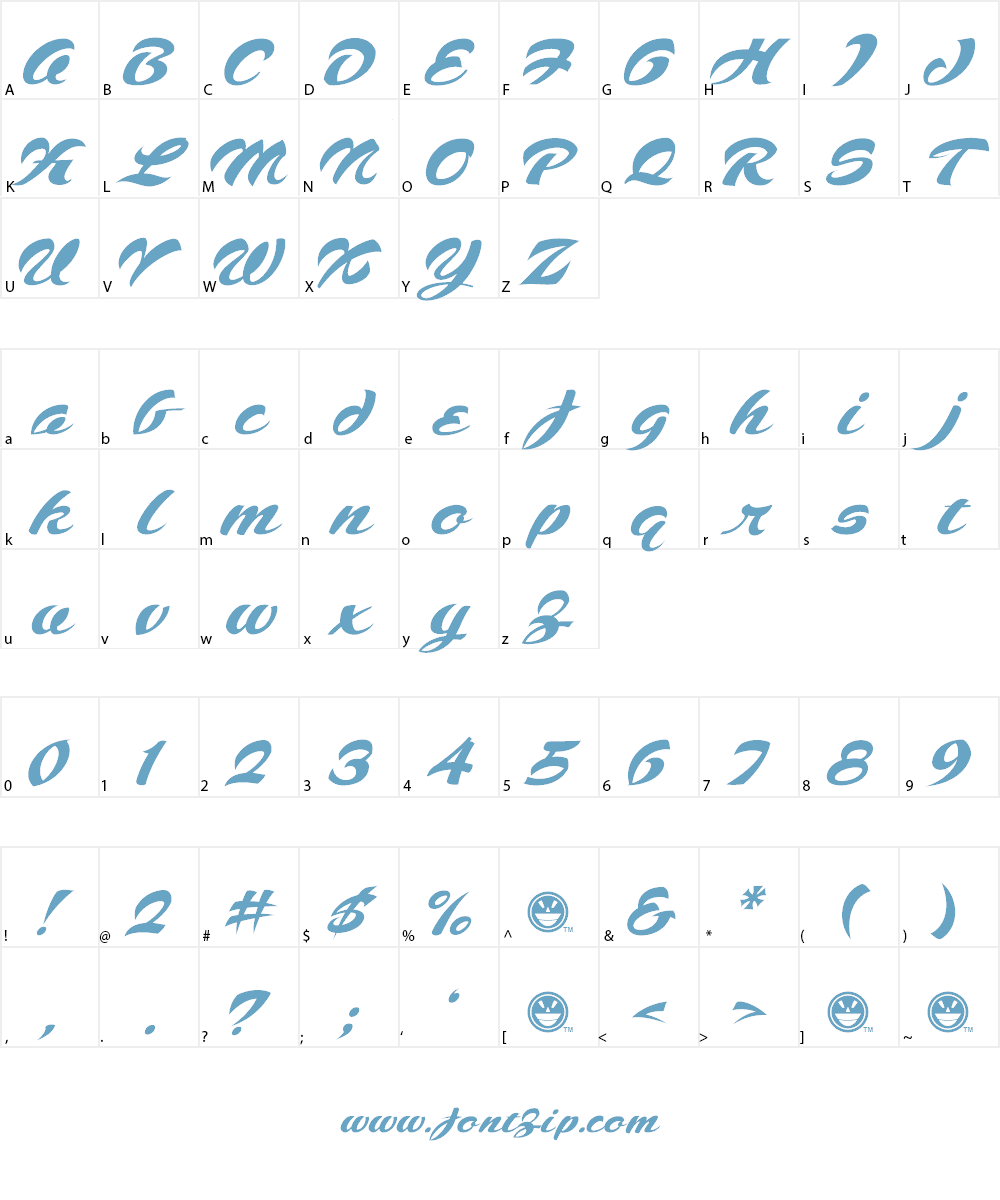
It's time for a script font with magical appeal. Think island. Think orient. Or for some, the magic is real. It's voodoo! Voodoo Script! We'll give you this limited example of Voodoo for free, but if you opt for our commercial version, it will arrive with 14,000 kerned pairs and over 45 alternate characters and ligatures! You also get a special Voodoo bonus font!!!!!!